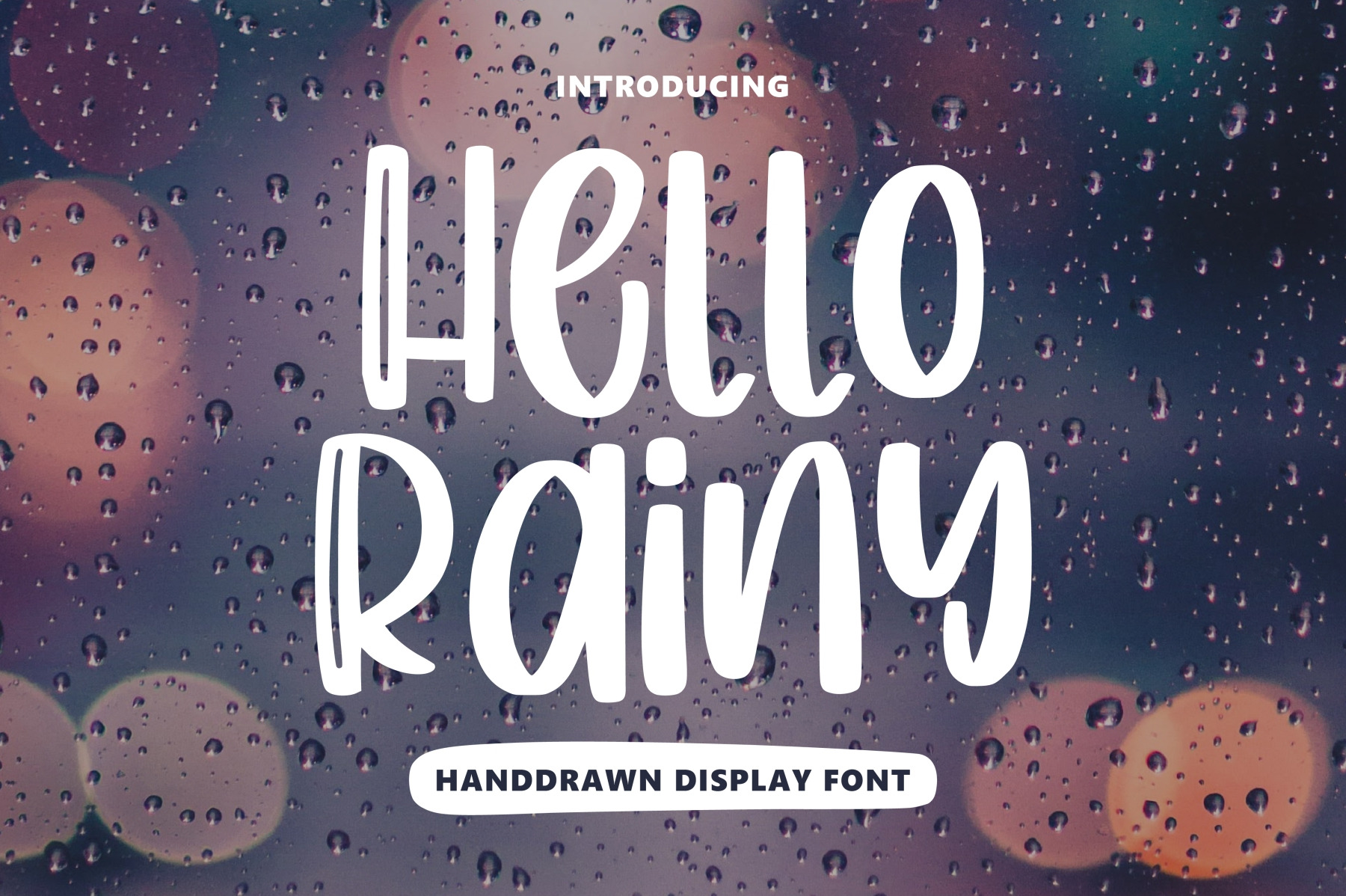
Produly Present Hello Rainy - Quirky Handdrawn Font
Hello Rainy - Quirky font make from handlettering ideas in typeface. This font includes full of Alphabetical glyphs, Numerals, and punctuation. This is so perfect for invitations, monograms, wedding, fashion, branding, label, handlettering or logotype.